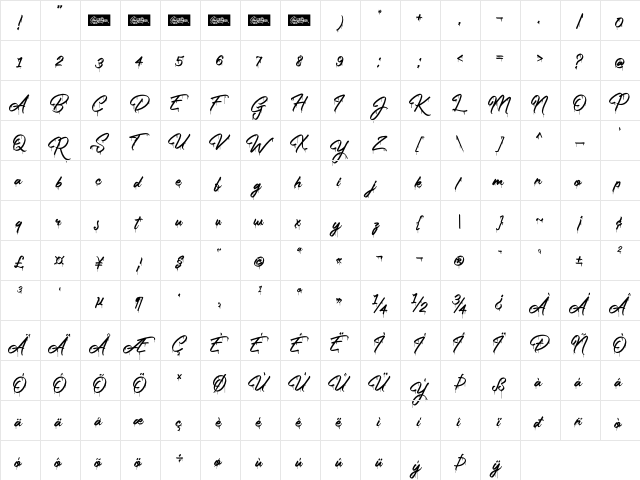
The Gunslinger Waterdrop Regular
Design Context for The Gunslinger Waterdrop Typeface
The Gunslinger Waterdrop is a composed and adaptable typeface that performs quietly and consistently across a wide range of design contexts.